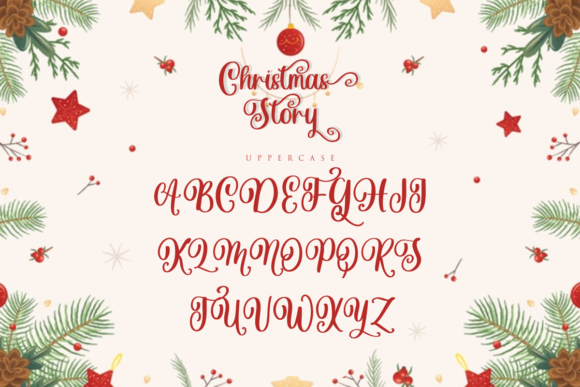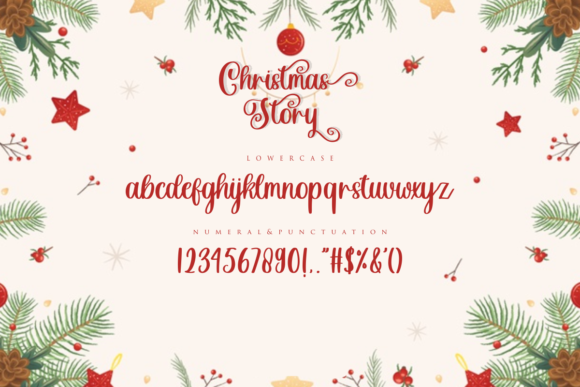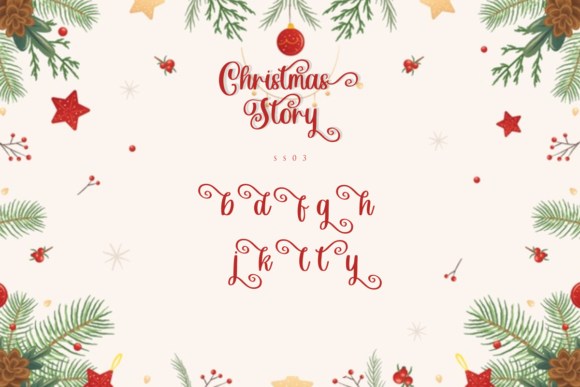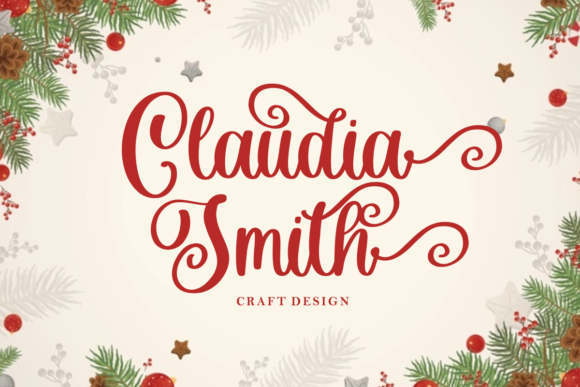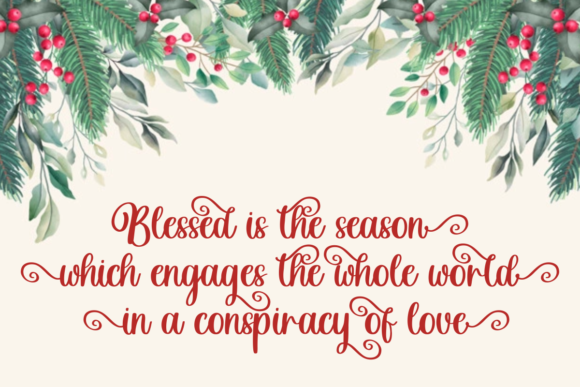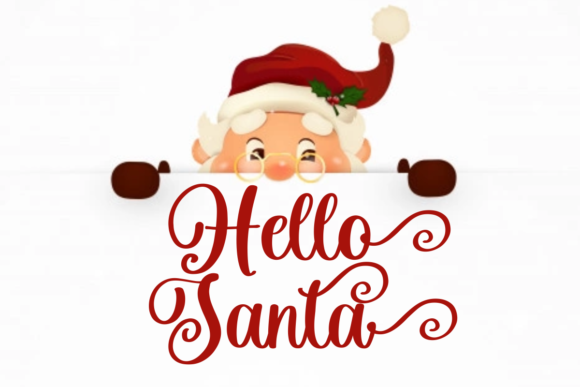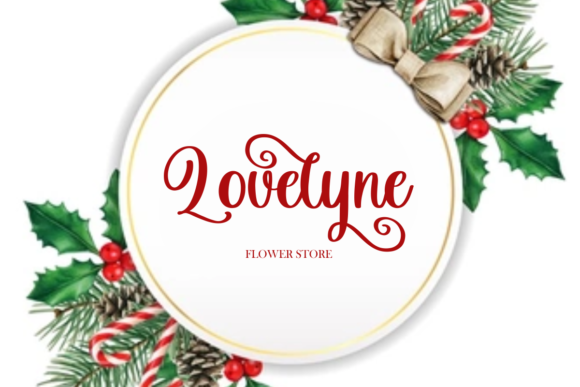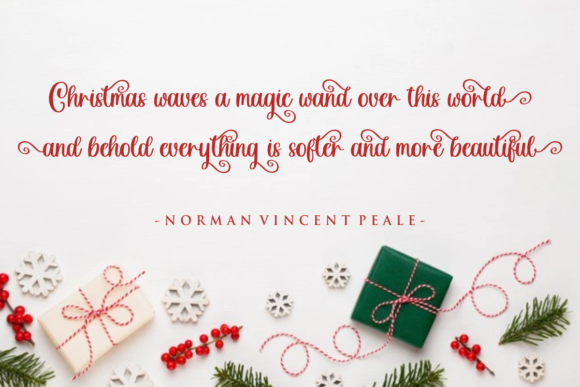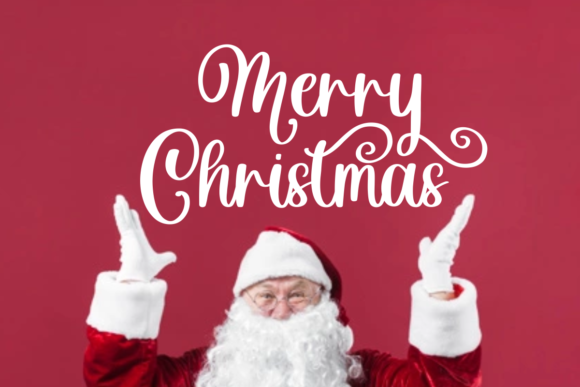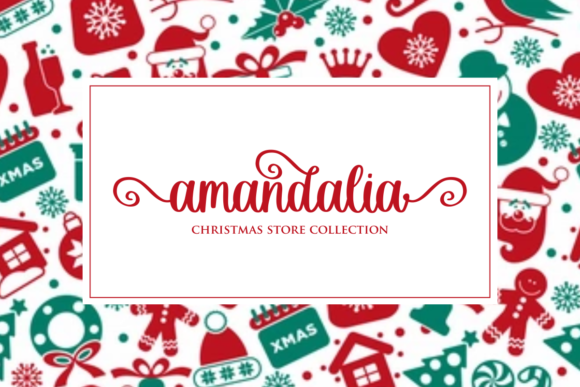
Introducing Christmas Story: The Friendly, Fresh, Rich, and Elegant Handwritten Font
Get into the holiday spirit with Christmas Story, a font that combines friendliness, freshness, richness, and elegance in its handwritten style. Ideal for holiday-themed greeting cards and any crafting project that requires a romantic touch, Christmas Story will bring warmth and joy to your designs. Embrace the convenience of its PUA encoding, allowing you to access all the glyphs and swashes with ease!
Christmas Story’s friendly and fresh appeal brings a sense of warmth and cheer to your designs. Its handwritten style adds a personal touch, making your text feel like a heartfelt message to your loved ones.
As a font with a rich and elegant flair, Christmas Story exudes sophistication and refinement. Each letter carries a touch of grace, adding an air of luxury to your holiday creations.
The font’s versatility makes it perfect for holiday-themed greeting cards, setting the tone for a season of love and joy. It also elevates any crafting project that requires a romantic touch, adding a touch of magic and charm.
Embrace the festive spirit of Christmas Story as you embark on your creative endeavors. Let it be the font that spreads joy and happiness, making your designs truly special during the holiday season.
As you explore the possibilities of Christmas Story, you’ll find it to be a font that enhances your projects with ease. Its friendly, fresh, rich, and elegant handwritten beauty transforms your work, ensuring that your creations stand out with a touch of holiday magic.
So, let Christmas Story be the font that adds a romantic touch to your designs. Embrace its sophistication and elegance, and watch as your holiday-themed projects come to life with a sense of joy and luxury. With Christmas Story as your go-to font, your designs will resonate with warmth and beauty, captivating your audience and leaving a lasting impression. Embrace the festive joy of Christmas Story and create designs that are truly memorable and filled with love!